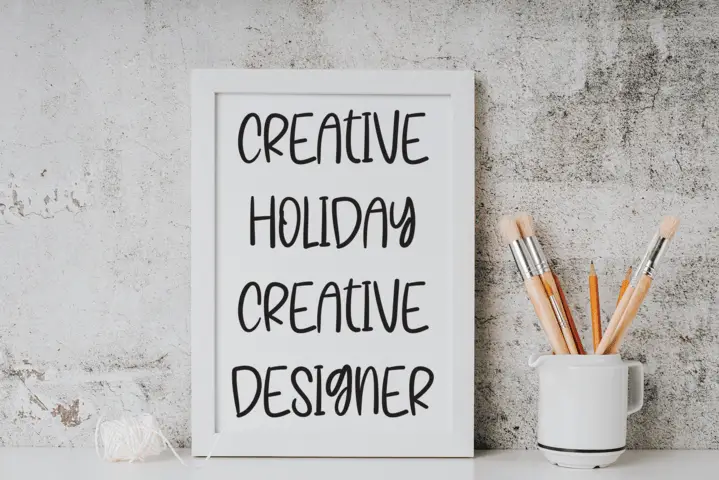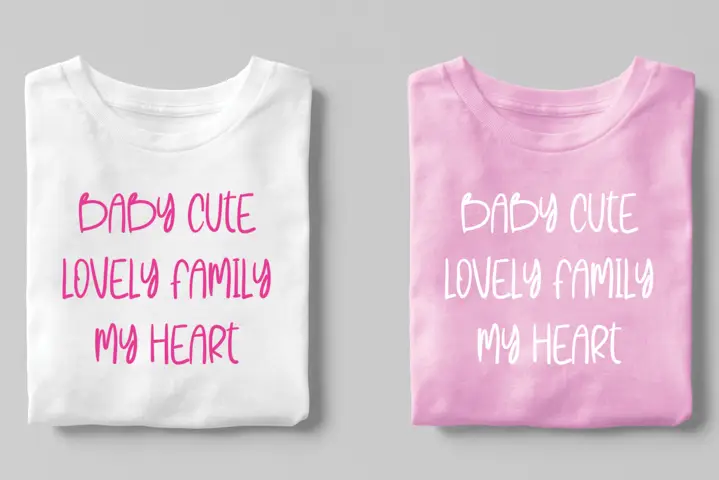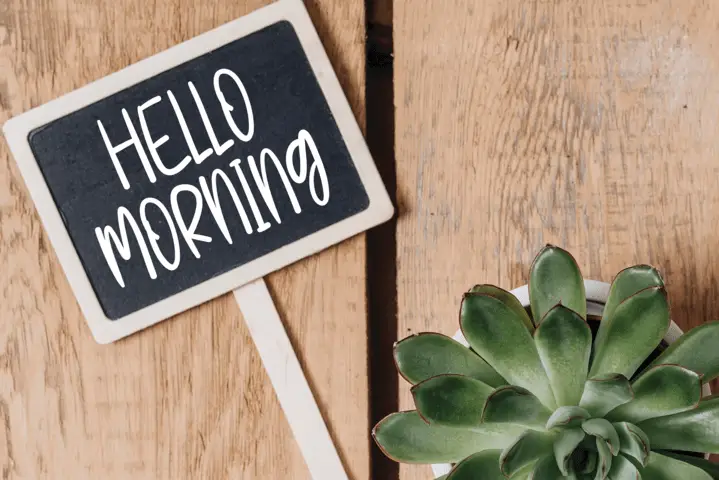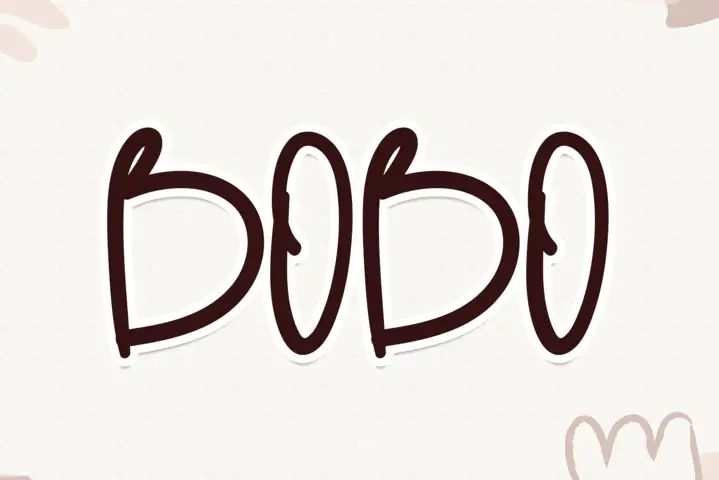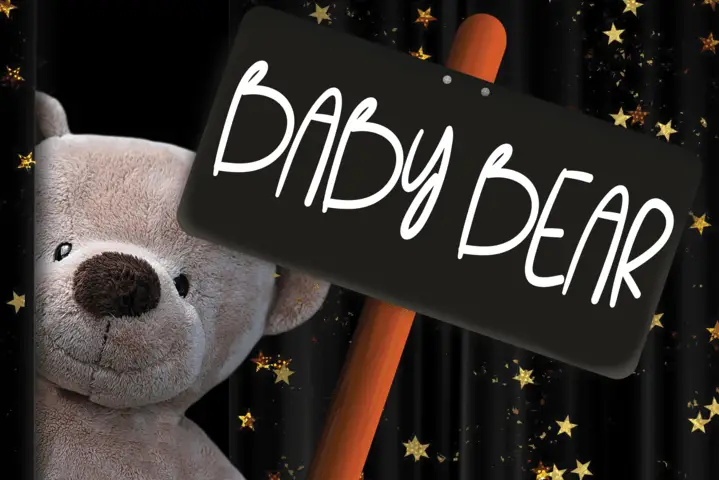
Bobo Handwritten Font
The Bobo Handwritten Font is a charming and playful typeface that captures the essence of handwritten text. Perfect for adding a personal touch to your projects, this font features a unique blend of smooth curves and whimsical strokes.
• Stylish handwritten design
This font is ideal for branding, logos, invitations, and any project that requires a friendly and approachable aesthetic. Use it to create eye-catching designs that resonate with your audience.